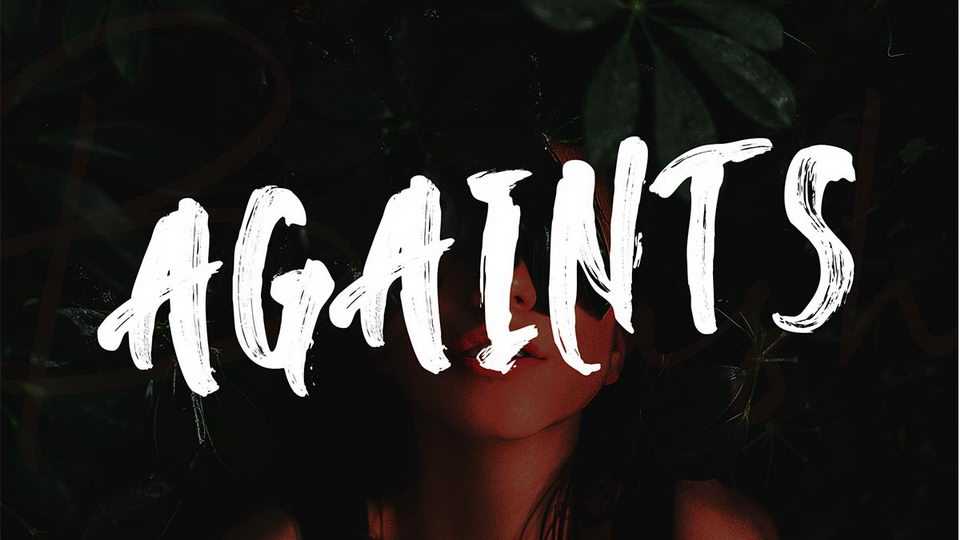
Download Against font, a bold brush painted typeface with a rough and textured look. Against is perfect for posters, t-shirt prints, album covers and other street style design.